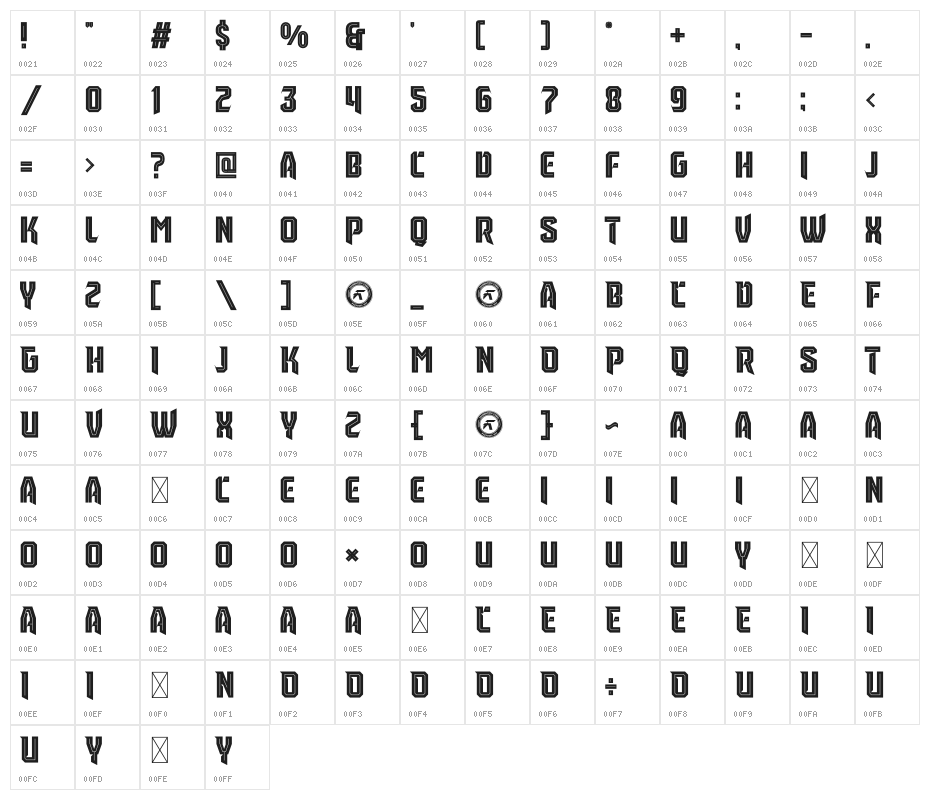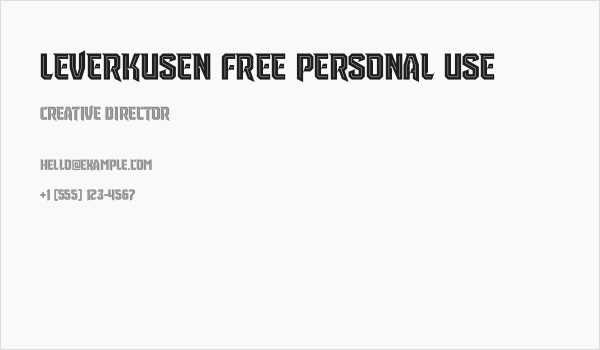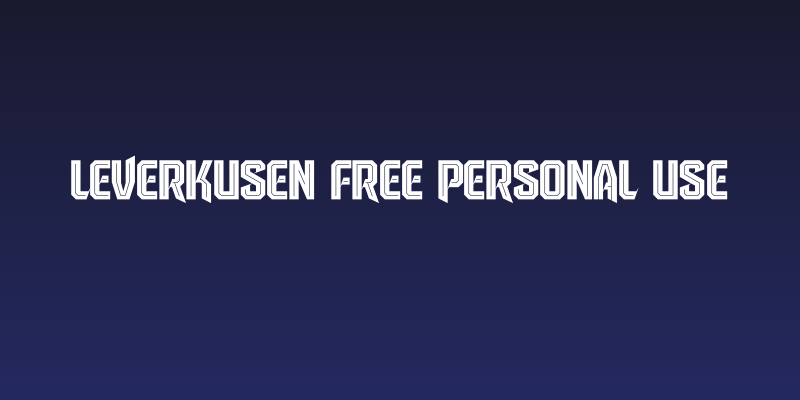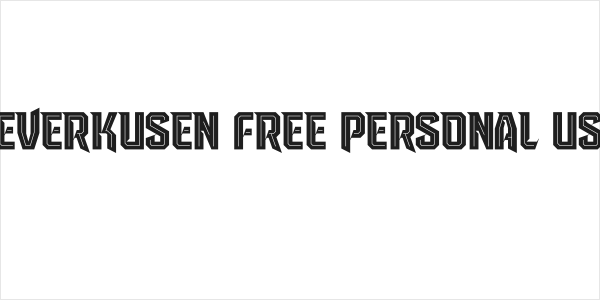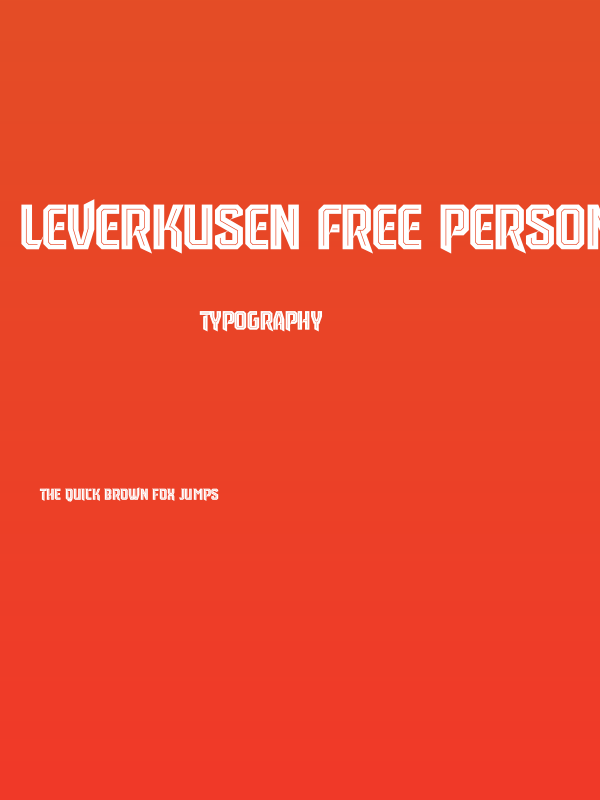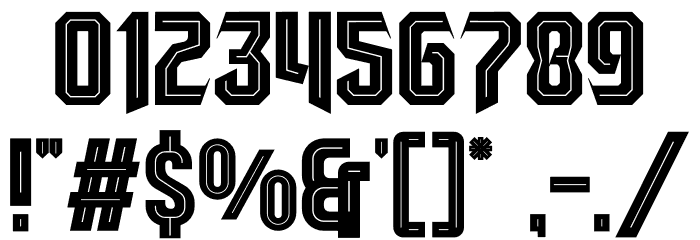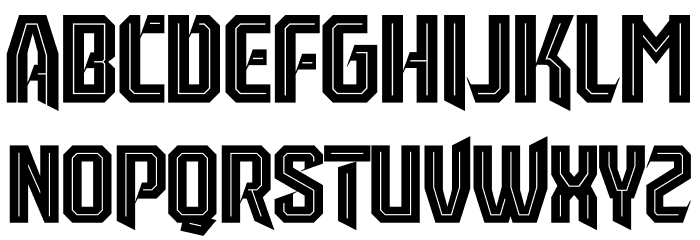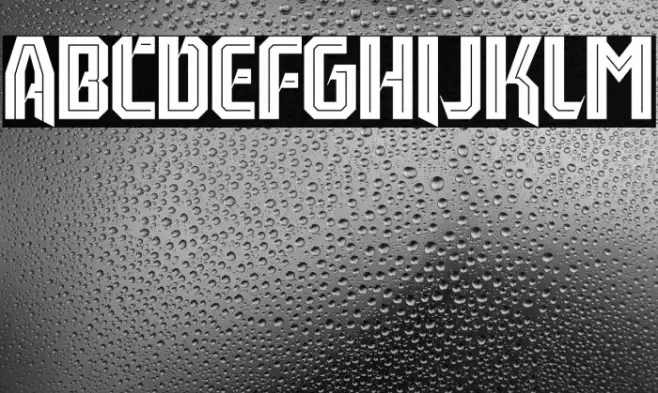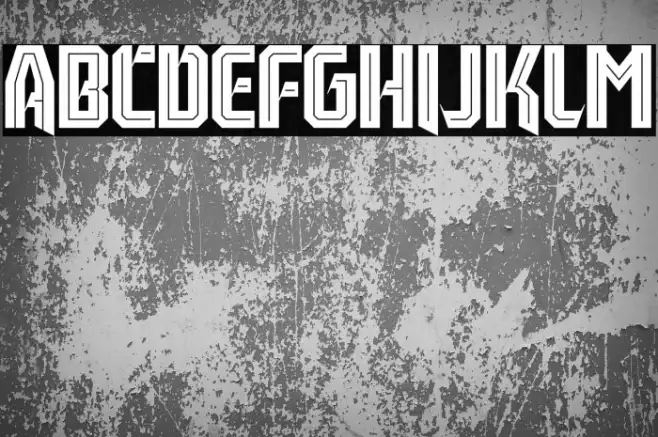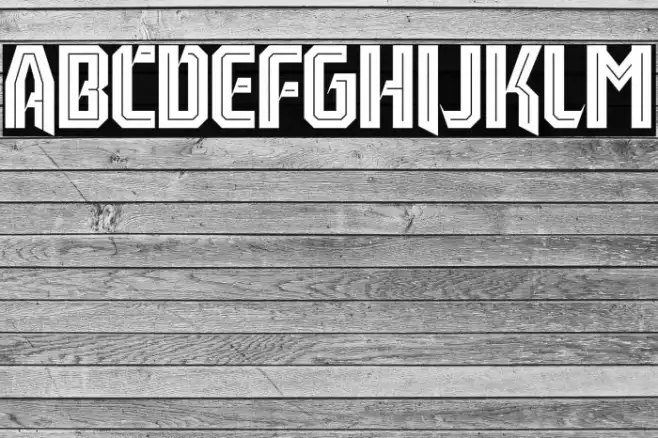
Leverkusen Free Personal Use Font
| Gesamtstil | Futuristic, Edgy |
| Vorgeschlagene Projekte | Ideal for posters, logos, video game graphics, and any project requiring a futuristic or edgy look. |